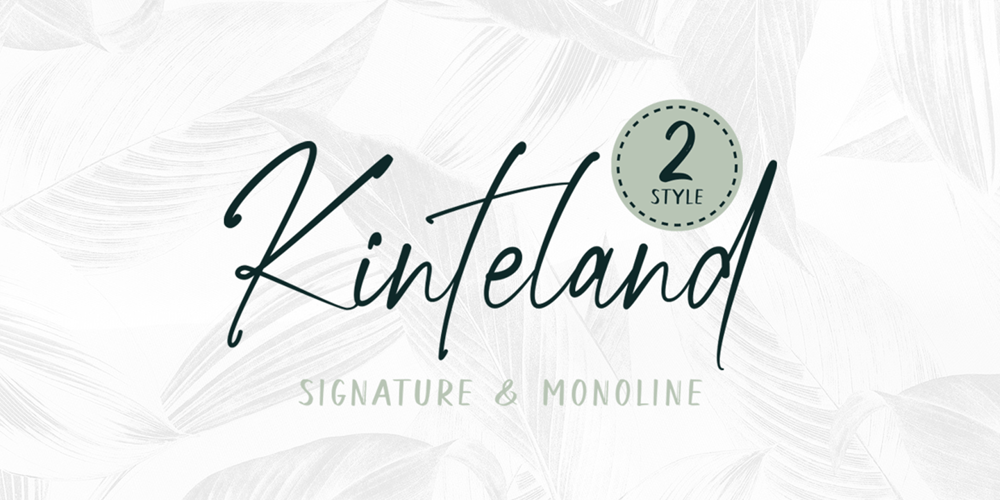
Kinteland Font Family was designed by Winarno and published by Bluestudio. Kinteland contains 2 styles and family package options. Kinteland is a handwritten 2 style font. It’s perfect for creating beautiful font combinations for all your design projects!Kinteland is perfect for all types of your business projects such as: logo design, business cards, greeting cards, magazines, newspapers, social media designs, watermarks and many more.